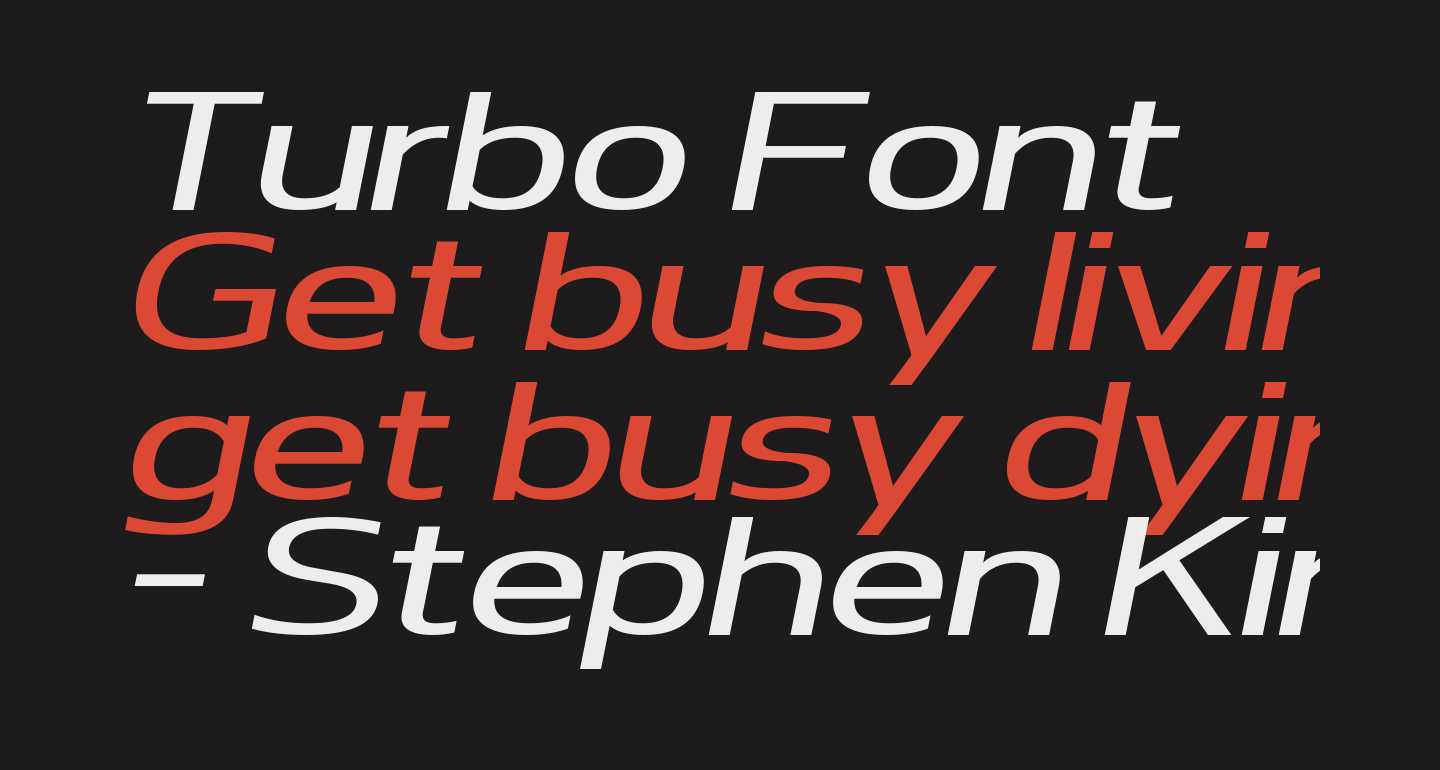
This Typeface Is Perfect For An Elegant & Luxury Logo, Book Or Movie Title Design, Fashion Brand, Magazine, Clothes, Lettering, Quotes, And So Much More.
This Font Is Ideal For Automotive Projects, But Is Not Limited To Them.
F1 Regular, F1 Turbo And F1 Torque.